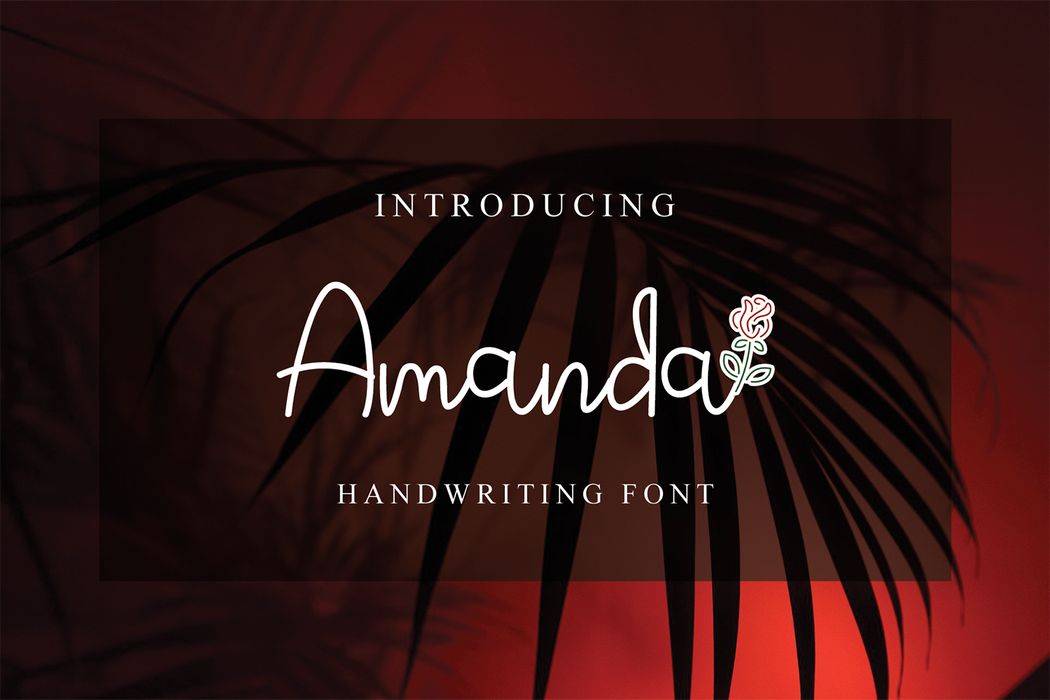
Amanda Font is a delicate, handwritten script with a casual and playful feel, characterized by its thin, consistent strokes and tall, narrow letterforms. Its elegant yet approachable style makes it ideal for personal branding, invitations, and creative projects that seek a friendly and informal touch. This font works best in headlines or display text where a warm, human quality is desired.
Amanda Font